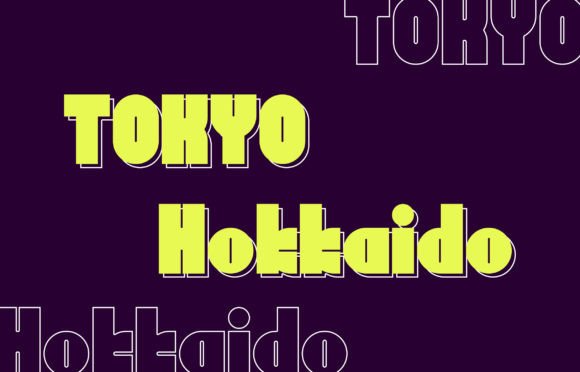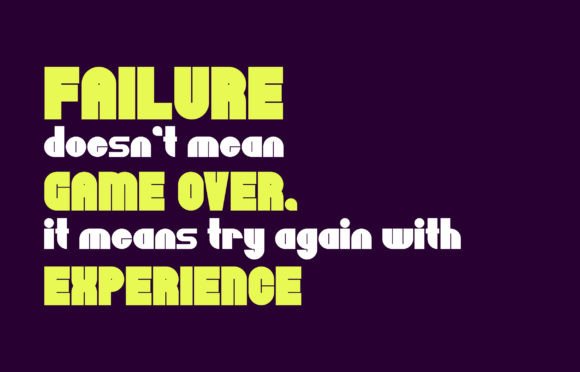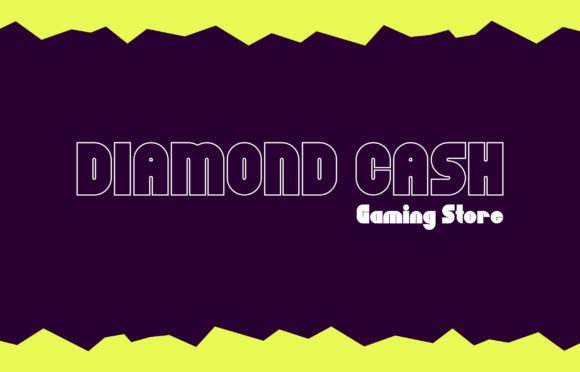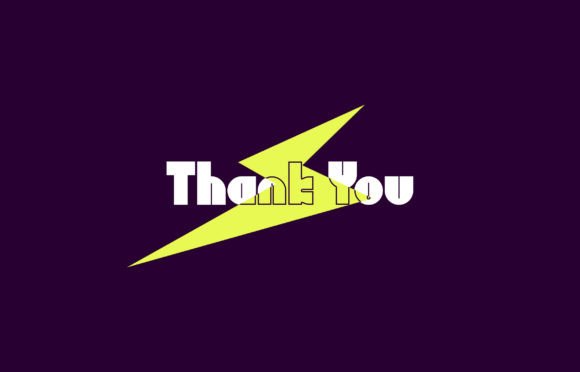
Unleash Your Creativity with Broxy Font: A Bold and Captivating Display Font
In the world of typography, fonts play a crucial role in conveying messages, expressing emotions, and creating visual identities. For designers and crafters, finding the right font can make all the difference in bringing their ideas to life. If you’re looking for a font that exudes confidence, energy, and creativity, look no further than Broxy Font. In this article, we’ll dive into the features, benefits, and uses of Broxy Font, and explore how it can elevate your designs to the next level.
What is Broxy Font?
Broxy Font is a robust and captivating display font that boasts chunky letterforms and strong lines. Its bold and sturdy design makes it perfect for creating attention-grabbing headlines, posters, and any project that requires a strong visual impact. Whether you’re a designer, crafter, or DIY enthusiast, Broxy Font is an excellent addition to your typography toolkit.
Key Features of Broxy Font
- Chunky Letterforms: Broxy Font features thick, chunky letterforms that command attention and make a lasting impression.
- Strong Lines: The font’s strong lines and sturdy design ensure that your text stands out, even at a distance.
- Bold and Captivating: Broxy Font is designed to grab attention and convey confidence, making it perfect for bold and eye-catching designs.
- Versatile: This font is suitable for a wide range of projects, from headlines and posters to logos, branding, and packaging.
Benefits of Using Broxy Font
So, why choose Broxy Font for your next project? Here are just a few benefits of using this amazing display font:
- Adds Visual Impact: Broxy Font’s bold design ensures that your text stands out and grabs attention, making it perfect for projects that require a strong visual impact.
- Conveys Confidence: The font’s sturdy and confident design conveys a sense of authority and professionalism, making it ideal for branding, logos, and marketing materials.
- Easy to Read: Despite its bold design, Broxy Font is surprisingly easy to read, even at smaller sizes, making it suitable for a wide range of applications.
- Unique and Creative: Broxy Font’s chunky letterforms and strong lines make it a unique and creative addition to any design, setting it apart from more traditional fonts.
How to Use Broxy Font
Broxy Font is an incredibly versatile font that can be used in a wide range of projects. Here are just a few ideas to get you started:
- Headlines and Posters: Use Broxy Font to create bold and attention-grabbing headlines and posters that demand attention.
- Branding and Logos: The font’s sturdy design makes it perfect for logos, branding, and packaging that requires a strong visual identity.
- Marketing Materials: Broxy Font is ideal for marketing materials, such as flyers, brochures, and business cards, that need to make a lasting impression.
- DIY Projects: Whether you’re creating handmade cards, scrapbooking, or working on other DIY projects, Broxy Font is a great addition to your typography toolkit.
In conclusion, Broxy Font is a robust and captivating display font that’s perfect for designers, crafters, and DIY enthusiasts looking to add a bold and attention-grabbing touch to their projects. With its chunky letterforms, strong lines, and versatile design, Broxy Font is an excellent choice for headlines, posters, branding, and any project that requires a strong visual impact. So why wait? Download Broxy Font today and unleash your creativity!